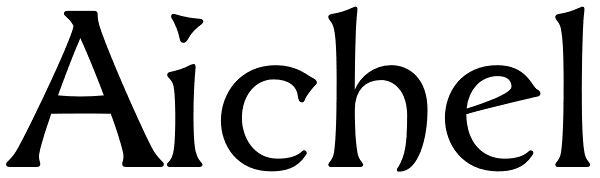
Aichel
Every type face which was originally designed for use in architecture (in this particular case for a UNESCO memorial plaque for a church built by Jan Santini-Aichel on Zelená Hora) is surprisingly well usable also in minor graphic works. The...